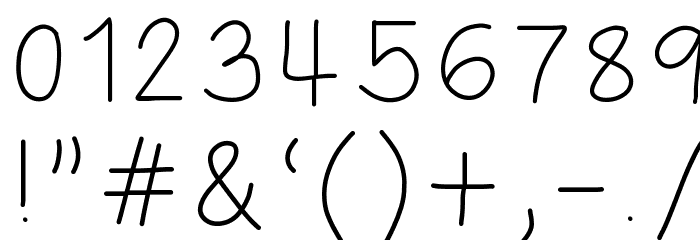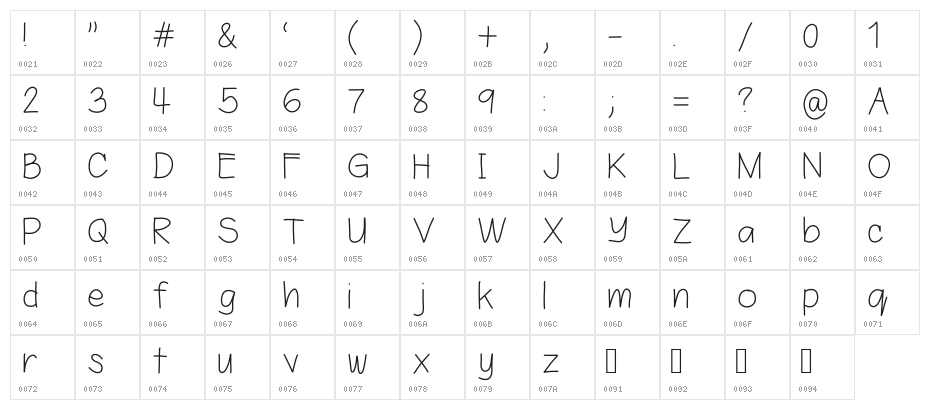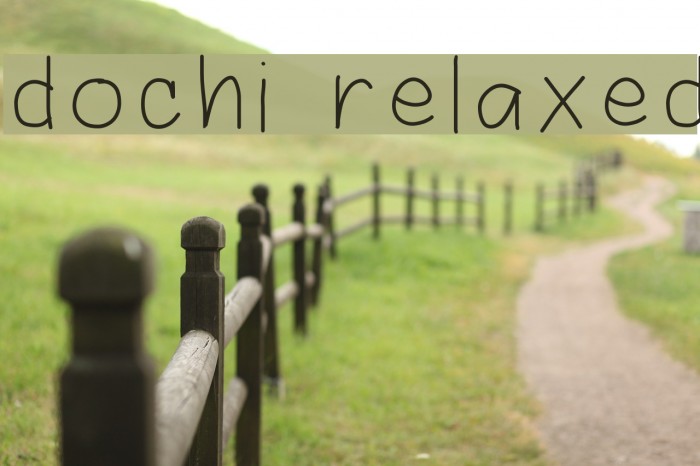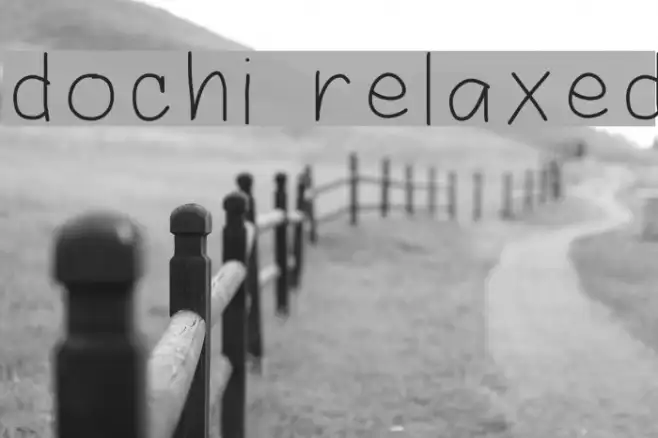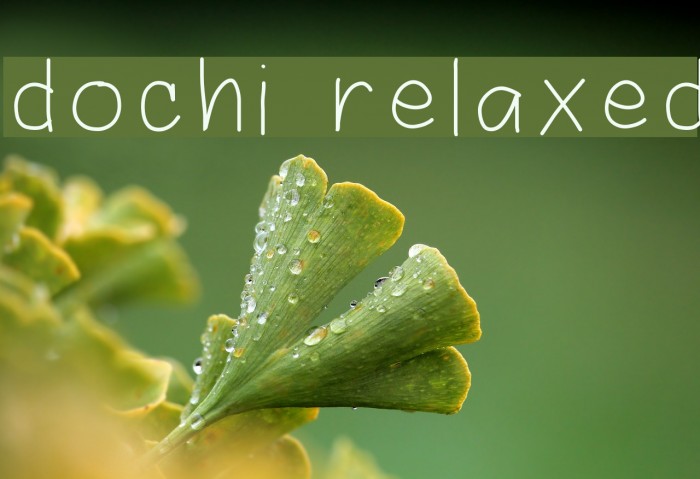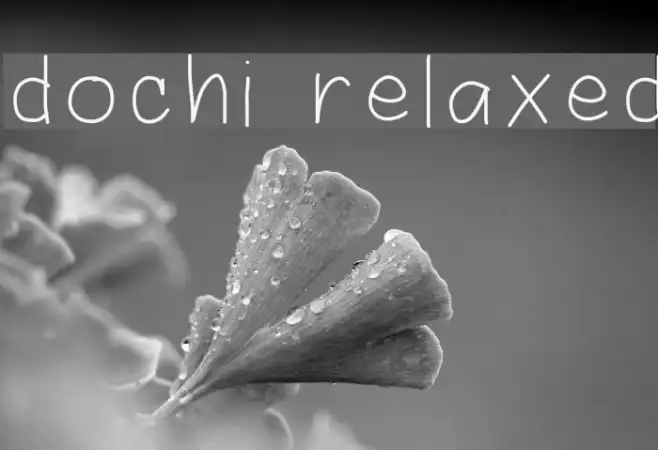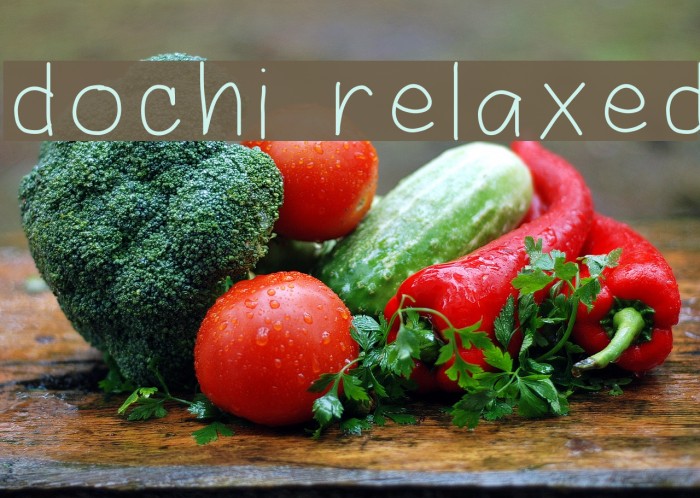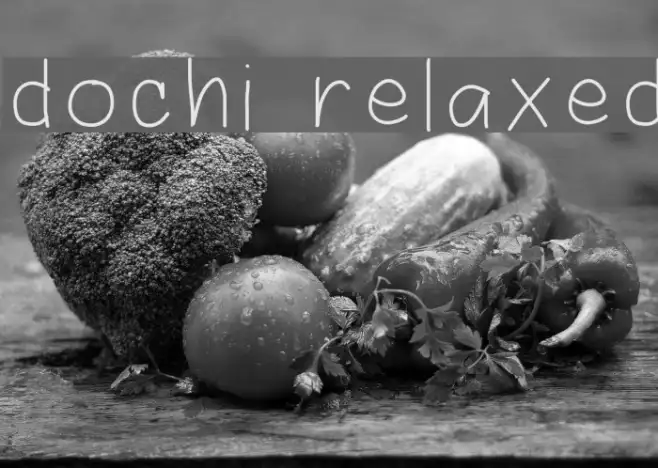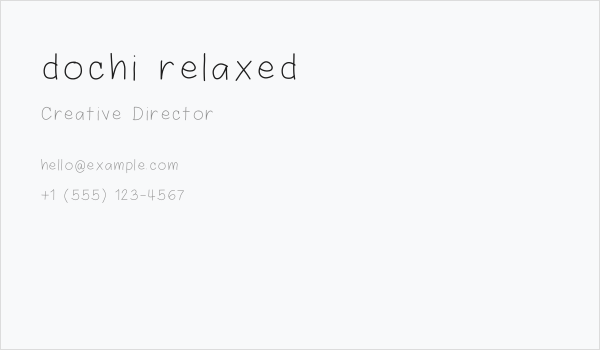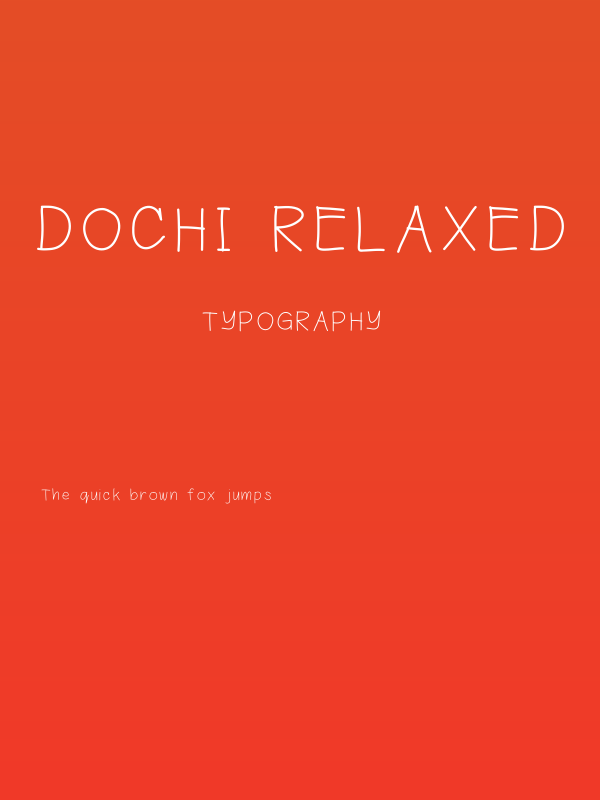
dochi relaxed Font
dochi relaxed Description
This font features a playful and relaxed handwritten style, characterized by its casual and informal appearance. The letters are slightly irregular, with a natural flow that mimics the spontaneity of handwriting. The strokes are consistent in width, offering a uniform look while maintaining a sense of individuality in each character. The font includes both uppercase and lowercase letters, numerals, and a selection of special characters, making it versatile for various applications. Its friendly and approachable design is ideal for projects that require a personal touch.
| Proposed Projects | Ideal for greeting cards, invitations, personal branding, and creative projects that require a friendly and informal tone. |